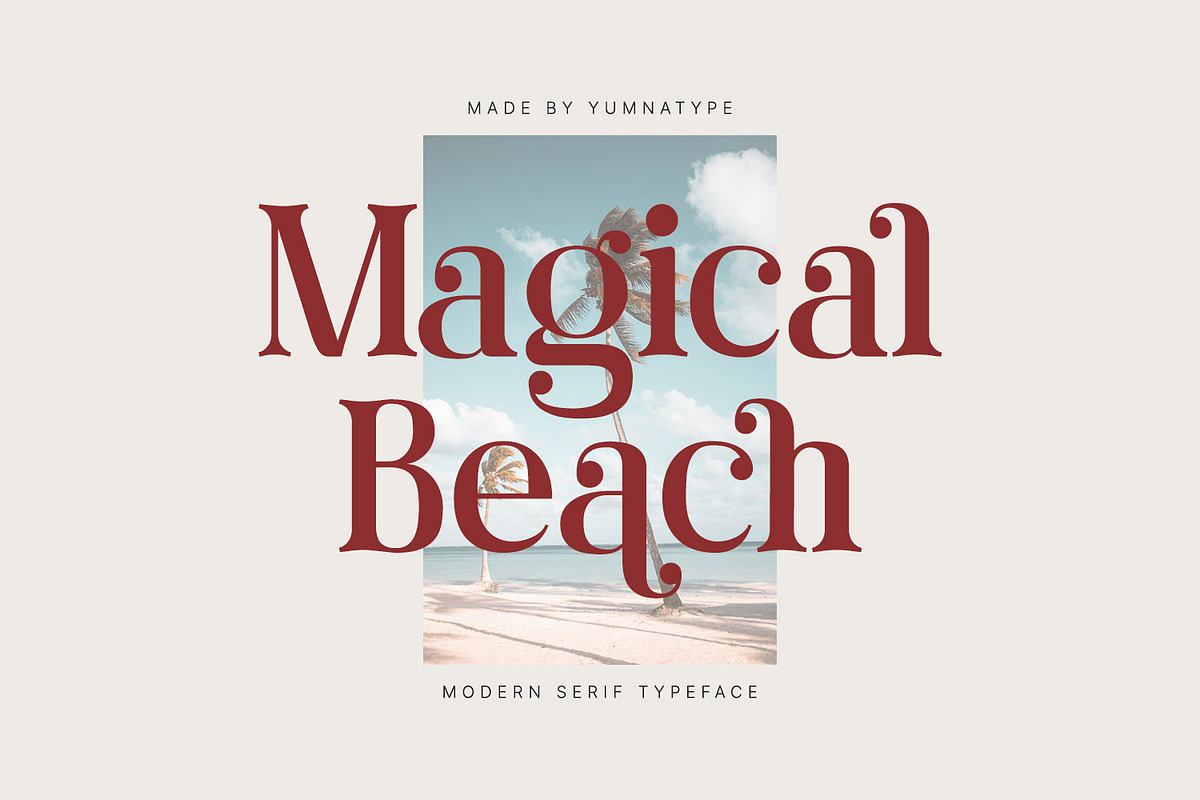
Magical Beach Font is perfect for tropical resort branding, beach vacation promotions, coastal wedding invitations, seaside restaurant menus, summer festival materials, ocean-themed designs, surf shop signage, beachfront property marketing, marine tourism campaigns, sunset celebration graphics, coastal lifestyle brands, and enchanting seaside communications.
Magical Beach Font is exciting because it captures the enchanting beauty and mystical allure of pristine coastlines through flowing letterforms that embody the magical moments when golden sunsets meet endless ocean horizons and gentle waves kiss sandy shores. This captivating typeface features organic curves and coastal-inspired details that evoke the serene magic of beach sunrises, the rhythmic dance of ocean waves, and the peaceful tranquility that defines perfect seaside experiences. The font's magical aesthetic creates instant emotional connections with audiences who dream of coastal escapes and oceanic adventures.
Magical Beach Font includes comprehensive font families: Regular Coastal Style, Bold Wave Weight, Light Breeze Touch, Medium Tide Balance, Italic Flowing Current, Condensed Shore Format, Extended Horizon Width, Sunset Golden Version, Shadow Depth Effects, and Special Ocean Symbols, providing endless creative possibilities for magical coastal and beach-themed design projects that celebrate oceanic beauty and seaside wonder.
This enchanting typography solution transforms ordinary communications into magical coastal experiences through its authentic beach-inspired aesthetic and mystical design language. Magical Beach Font Free Download enables designers and coastal brands to access premium oceanic typography that instantly adds magic, tranquility, and seaside appeal to any creative project. The font's carefully crafted coastal elements ensure authentic beach character while maintaining excellent readability and distinctive magical presence.
Coastal resorts, beach businesses, and oceanic brands trust Magical Beach Font for its ability to communicate serenity, escapism, and magical coastal experiences to audiences seeking authentic beach connections and seaside tranquility. The typeface's flowing construction performs beautifully across various applications, from intimate coastal communications to large-scale beach tourism campaigns. Its extensive character support includes multilingual capabilities and oceanic design elements that enhance magical coastal brand presentations.
The creative inspiration behind Magical Beach Font draws from the mystical beauty of ocean horizons, the golden magic of beach sunsets, and the universal human fascination with coastal environments that offer peace, renewal, and natural wonder. This ocean-focused approach creates a font that feels genuinely magical while maintaining contemporary relevance across different coastal contexts and seaside brand expressions.
Whether creating beach resort identities, coastal event materials, or oceanic marketing campaigns, this magical beach font delivers exceptional results that capture the essence of seaside enchantment and coastal wonder. Download Magical Beach Font today and discover how premium coastal typography can transform your design projects into magical expressions of oceanic beauty, seaside tranquility, and the enchanting allure that defines the most captivating beach experiences and coastal adventures.